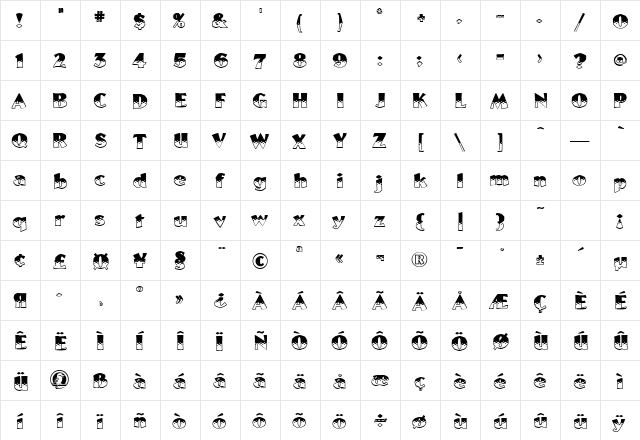
Carson Regular
Design Context for Carson Typeface
Carson is a composed and adaptable typeface that performs quietly and consistently across a wide range of design contexts.